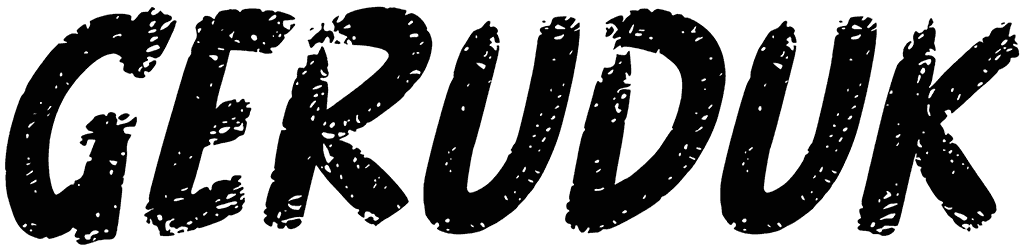
g Geruduk Font
Sometimes, using a modern and casual mood would be enough to impress your followers, and this brush font has this style. An urban vibe of bold characters is going to give your intended design a unique face. Test this spray-paint font for your new layouts, namely a cool fashion event poster, and make a surprising presentation.